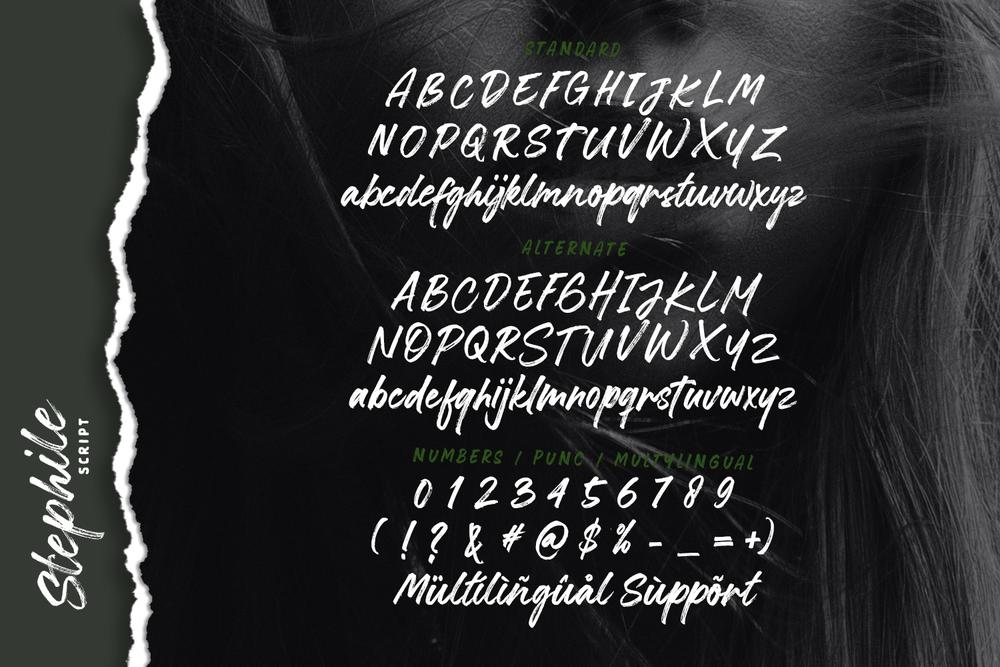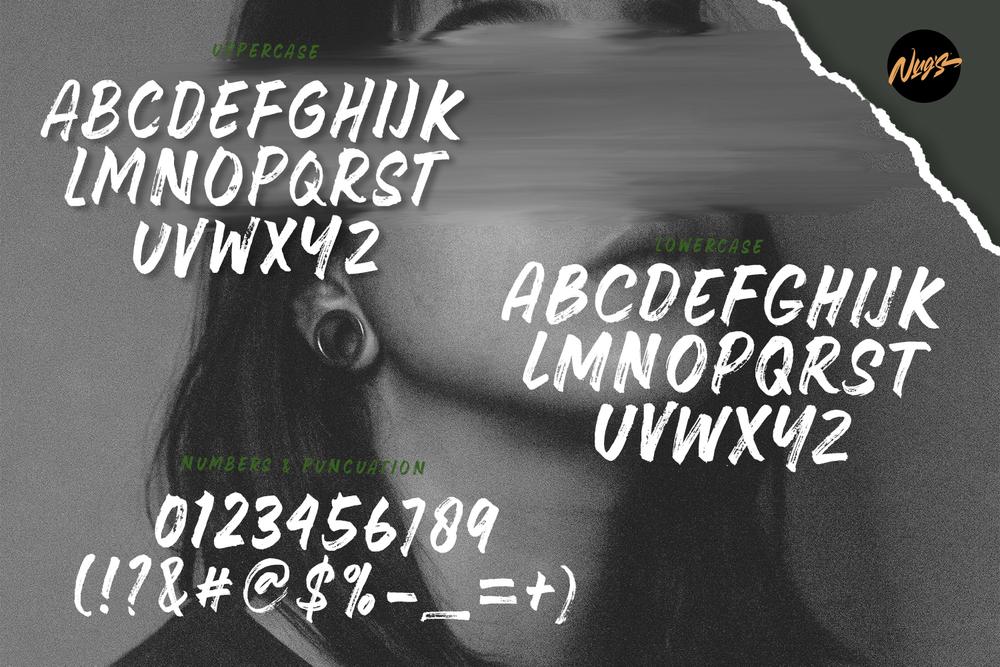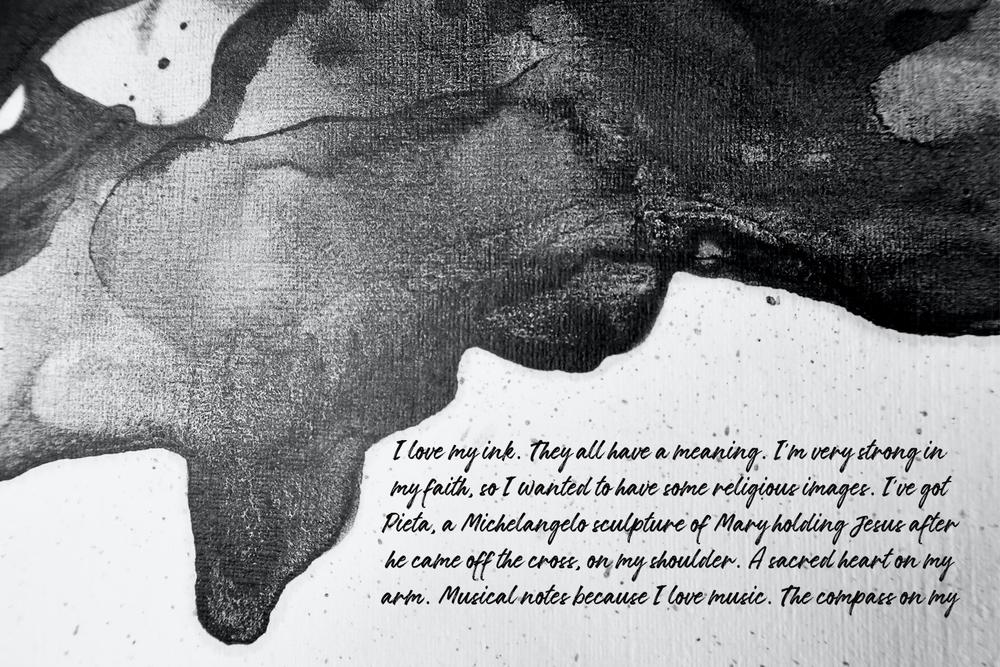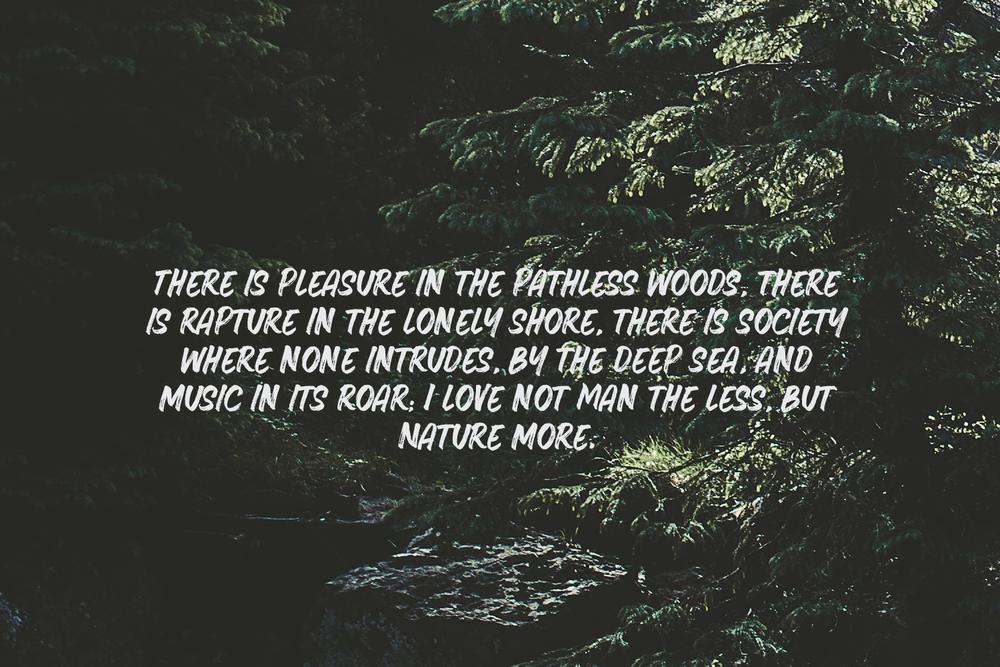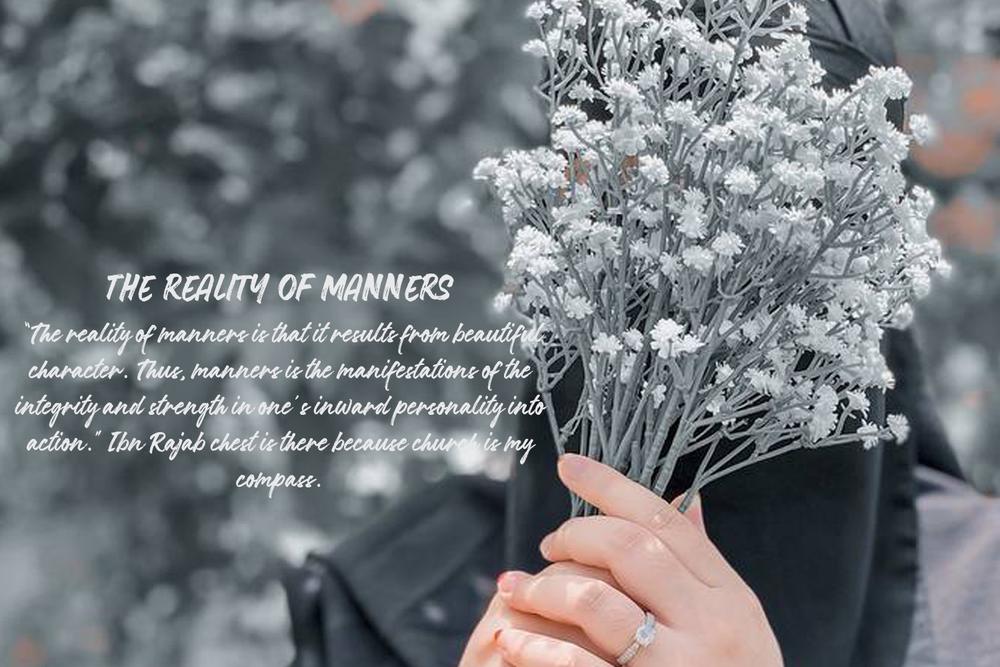
Stephile is casual hand brush script so it has this nice texture and flow. Stephile has lots of alternates to make it look more like real handwriting; four sets of lower cases and two sets of upper cases. suitable for design projects ; logo, branding, poster, quotes, gorgeous wedding invitations, beautiful stationary art, eye-catching social media posts, and cute greeting cards and any other designs. It is unique, so natural and catchy 𝑾𝒉𝒂𝒕'𝒔 𝒊𝒏𝒄𝒍𝒖𝒅𝒆 ☛ Stephile Script ☛ Stephile Caps ☛ Stephile Swash ☛ Numerals & punctuation ☛ Multilingual support 𝐅𝐨𝐫𝐦𝐚𝐭 : OTF, TTF, and WOFF.